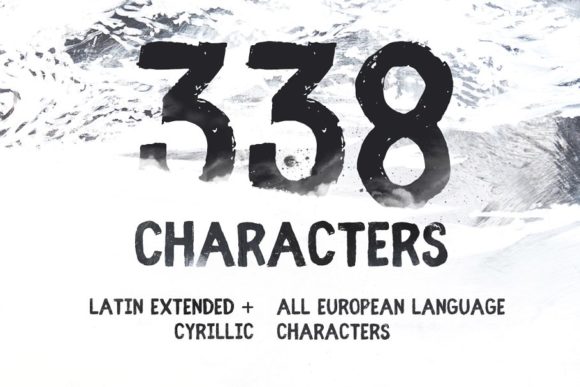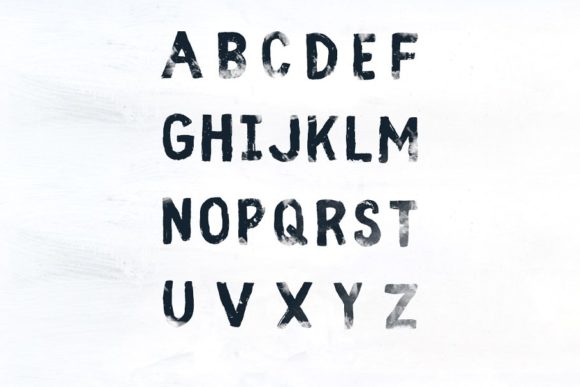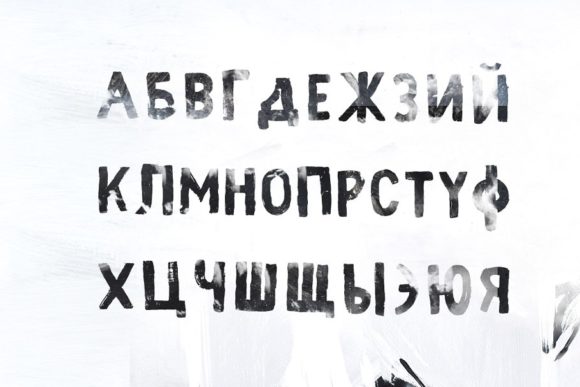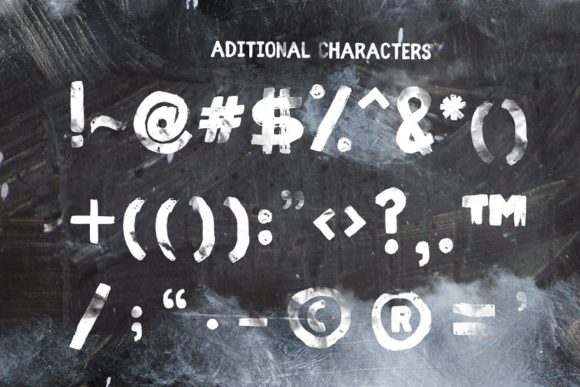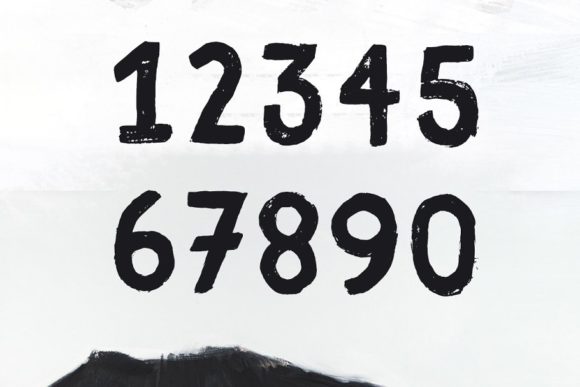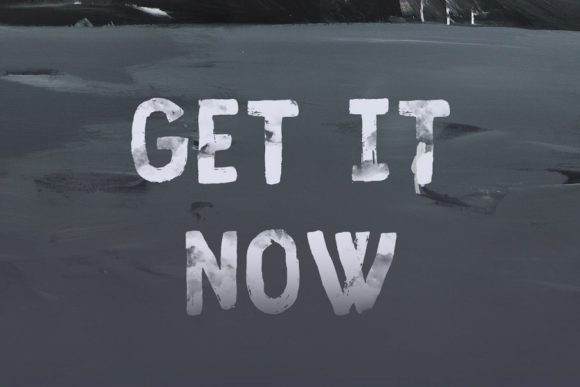
Introduction to Fibre Extended Font
Remember that moment when you finally find the perfect font for your creative project? It’s like a breath of fresh air, isn’t it? You envision your design coming together, and the font is the missing piece that ties everything together. For designers and crafty DIY enthusiasts, finding a font that’s both high-quality and visually appealing can be a game-changer.
Enter the Fibre Extended Font, a delightful sans serif font created with the charm of a brush pen. Its clean and quirky design makes it a perfect fit for logos, branding, social media, and any other creative project that requires a unique touch. With its transparent background, this font is ready to be superimposed onto your designs, adding a fun and playful vibe to your work.
Fibre Extended Font
- High-quality design resource ideal for creative projects, including logos, branding, and digital art.
- Features a transparent background, allowing for easy integration with various design elements and backgrounds.
- Comes in a single weight, making it a versatile choice for designers working on a range of creative projects.
- Designed with a modern aesthetic, the Fibre Extended Font is perfect for designers looking for a sleek and contemporary look.
Honest Review: Fibre Extended Font
As a designer, I’m always on the lookout for high-quality design resources that can elevate my creative projects. Recently, I came across the Fibre Extended Font, and I was excited to give it a try.
- High-quality design with a clean and modern aesthetic
- Perfect for creative projects that require a versatile font
Overall, I was really impressed with the Fibre Extended Font. It’s a solid design resource that I’d highly recommend to anyone looking for a high-quality font for their creative project.
- May not be suitable for projects that require a bold, attention-grabbing font
- Some users may find the font too minimalist
Overall, I’d give the Fibre Extended Font 4.5 out of 5 stars. It’s a great addition to any designer’s toolkit, and I’m excited to see how it can elevate my future creative projects.
For optimal results, use the Fibre Extended Font in conjunction with other design elements to create a cohesive look. Experiment with different font sizes and styles to find the perfect balance for your design.
The Fibre Extended Font is ideal for use in a variety of creative projects, including brochures, flyers, business cards, and presentations. Its unique design and high-quality typography make it a great choice for designers looking to add a professional touch to their work.